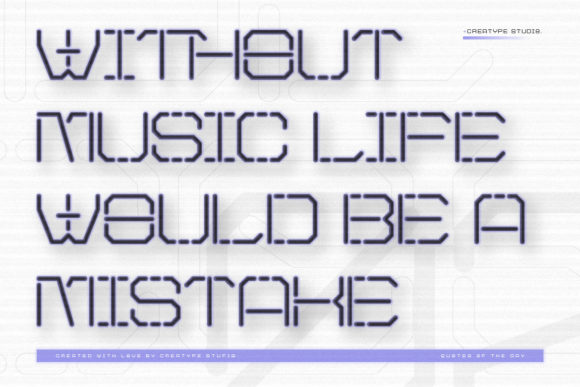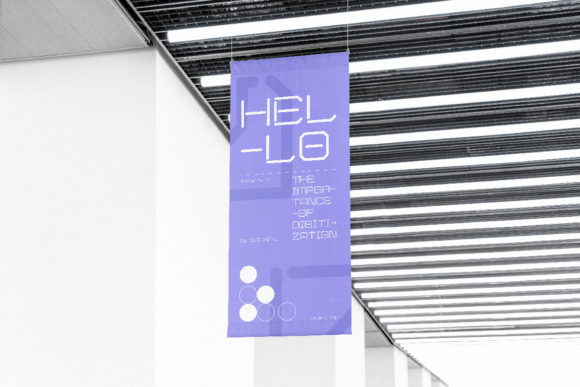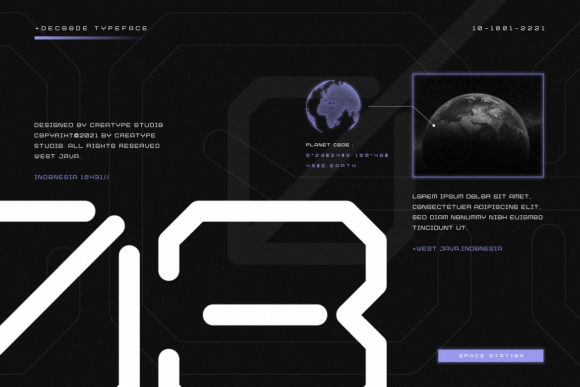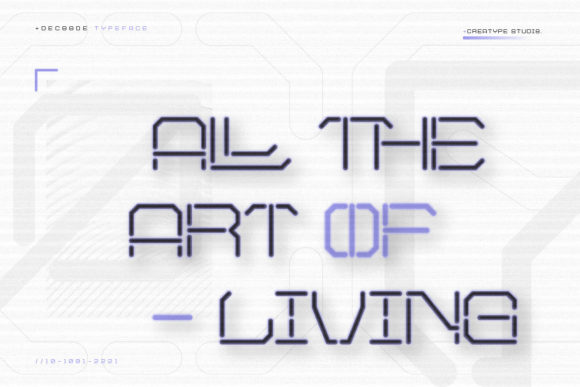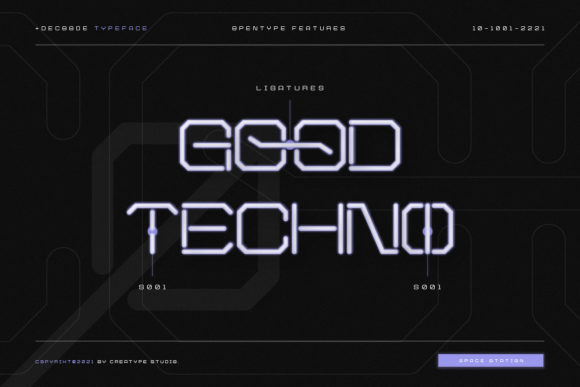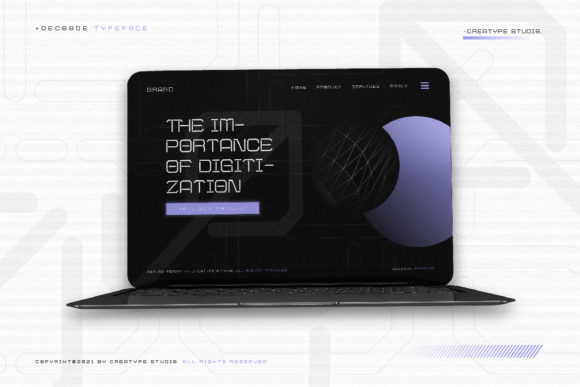
Introducing Decoode Futuristic Display Font: Elevate Your Designs with a Sci-Fi Twist
In the realm of design, fonts play a pivotal role in conveying the intended message and aesthetic of a project. For those seeking to infuse their creations with a futuristic, high-tech vibe, the Decoode Futuristic Display Font emerges as an exceptional choice. This article delves into the features, applications, and benefits of using Decoode in various design projects, from technology and science fiction to branding and beyond.
What is Decoode Futuristic Display Font?
Decoode is a stylish and versatile display typeface meticulously crafted to bring a futuristic feel to a wide array of design projects. Its sleek lines, advanced look, and meticulously designed characters make it an ideal selection for designers aiming to convey innovation, cutting-edge technology, and a forward-thinking approach.
Key Features of Decoode Font
- Perfect for Tech and Sci-Fi Projects: Decoode’s futuristic aesthetic makes it inherently suited for designs related to technology, science fiction, and scientific endeavors.
- Versatile Application: Beyond tech and sci-fi, this font’s versatility shines in branding projects, logos, wedding designs, social media posts, advertisements, product packaging, and more.
- PUA Encoded: A significant advantage of Decoode is its PUA (Private Use Area) encoding. This feature allows designers to access all glyphs and swashes easily, offering extensive flexibility in customizing and enhancing their designs.
- Futuristic Feel: Decoode’s design elements are crafted to provide a distinctly futuristic feel, making any project stand out with a modern and innovative look.
Applications of Decoode Futuristic Display Font
The applications of Decoode are vast and varied, catering to the creative needs of designers across different industries. Here are some of the key areas where Decoode can make a significant impact:
- Branding and Logos: Establish a strong brand identity with a futuristic edge.
- Wedding and Event Designs: Add a touch of modern elegance to wedding invitations, stationery, and event branding.
- Social Media and Advertisements: Capture attention with a futuristic appeal in social media graphics and advertisements.
- Product Packaging and Design: Stand out on store shelves with packaging that communicates innovation and forward thinking.
- Photography and Watermarks: Protect your images with a watermark that exudes professionalism and a futuristic vibe.
- Invitations and Stationery: Elevate personal and professional correspondence with a modern and sleek aesthetic.
Benefits of Using Decoode
Choosing Decoode for your design projects comes with several benefits:
- Time-Saving: Being PUA encoded, Decoode saves designers time by providing easy access to a wide range of glyphs and swashes.
- Enhanced Creativity: The futuristic look and feel of Decoode can inspire creativity and help designers explore new ideas.
- Professionalism: Decoode can add a professional touch to any project, making it suitable for both personal and commercial use.
- Versatility: The font’s versatility ensures it can be used across various design projects, making it a valuable addition to any designer’s toolkit.
The Decoode Futuristic Display Font is a powerful tool for designers looking to infuse their projects with a futuristic and high-tech aesthetic. Its sleek design, versatility, and PUA encoding make it an excellent choice for a wide range of applications, from technology and science fiction to branding, advertising, and beyond. By incorporating Decoode into your design workflow, you can elevate your projects with a modern edge, ensuring they stand out in a crowded digital landscape.
Whether you’re a professional designer or a crafty DIY enthusiast, Decoode offers the perfect blend of style, functionality, and creativity to bring your visions to life in a futuristic and captivating way.